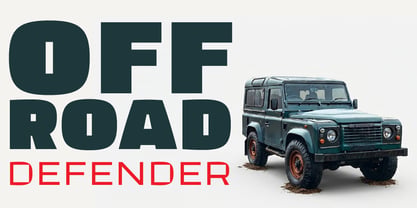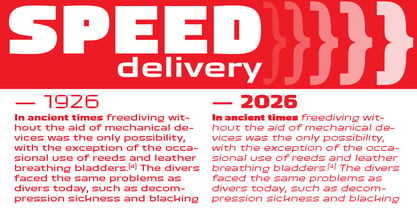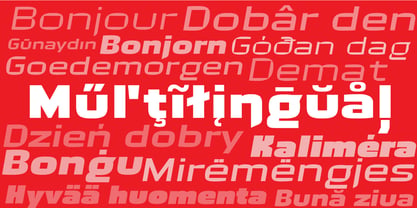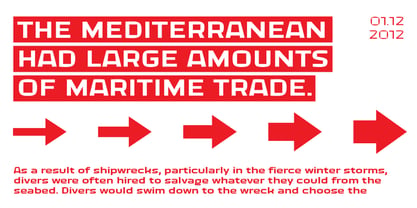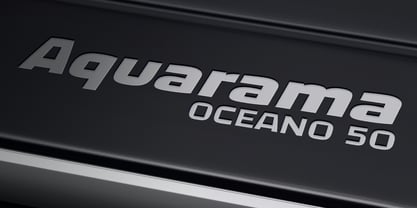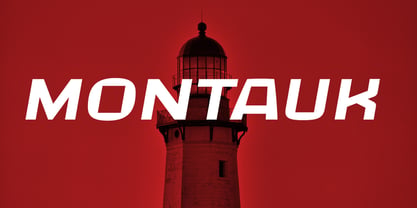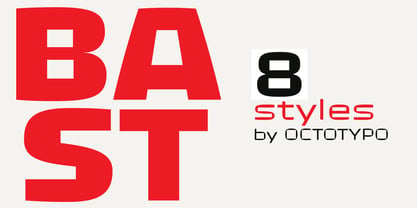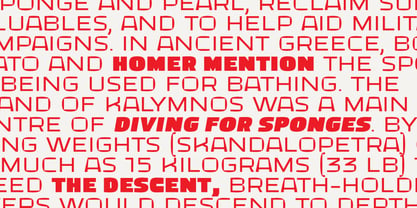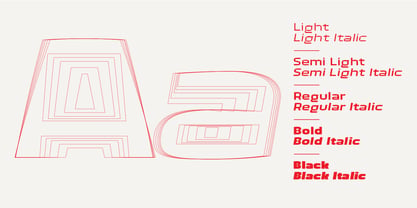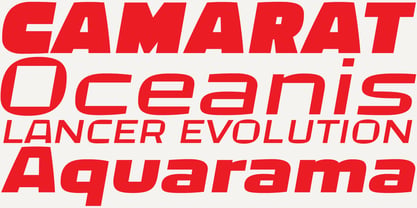
Bast Variable
by Octotypo
The Bast Variable Font Family was designed by Julien Janiszewski and published by Octotypo. Bast Variable contains 2 styles and family package options. More about this family
Bast was born from a single obsession: pushing a sans-serif to its structural limits. No optical corrections, no unnecessary curves — just flat terminals, clipped angles, and counters that become almost geometric voids. The result feels cast rather than drawn.
Within this apparent rigidity lives a subtle rhythm. The tapered uppercase A, the squared bowls of B and R, the deliberate abruptness of the S — enough personality to keep Bast from feeling purely mechanical, and to give it a voice that is immediately recognizable at large sizes.
The italic cuts introduce a forward lean that goes beyond simple slanting, making them particularly effective when paired with the roman weights in poster or editorial contexts.
Five weights, Light to Black. Designed for headlines, logotypes, and anywhere the text needs to hold its ground.